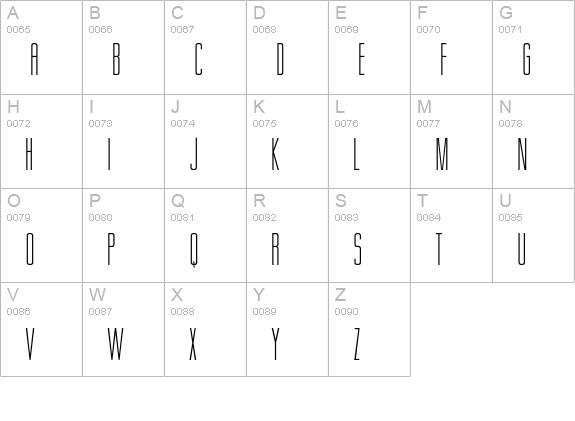
Giotto Font Details
Giotto font is a timeless and elegant typeface that exudes sophistication and charm. Its classic and versatile design makes it perfect for a wide range of creative projects, from branding to editorial design. With its clean lines and graceful curves, Giotto font adds a touch of refinement to any text or headline. What sets Giotto font apart is that it is not only beautifully crafted but also free for personal and commercial use. This means that you can download and use it without any restrictions, making it a valuable addition to your font library. You can easily access Giotto font for free at FontsMarket.com, where you can explore its full range of weights and styles to suit your design needs. Whether you're working on a logo, website, or print material, Giotto font offers a sophisticated and polished look that will elevate your projects to the next level. Download this exquisite typeface today and experience the beauty and versatility of Giotto font for yourself.